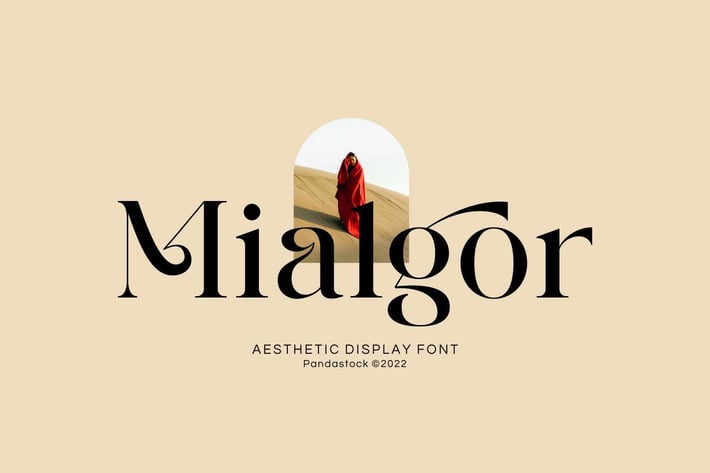
Mialgor - Luxury Classy Font
Mialgor is luxury classy fonts with visual elegance, smooth curves and beautiful ligatures clear, making your work look true and attractive.
A very versatile font that works in both large and small sizes. This font is suitable for a wide variety of projects such as invitations, logo, branding, magazine, photography, card, product packaging, mugs, quotes, poster, label, signature and more.
Punctuation, Number and Symbol
* Multilingual Support ÀÁÂÃÄÅÆÇÈÉÊËÌÍÎÏÐÑÒÓÔÕÖØÙÚÛÜÝ